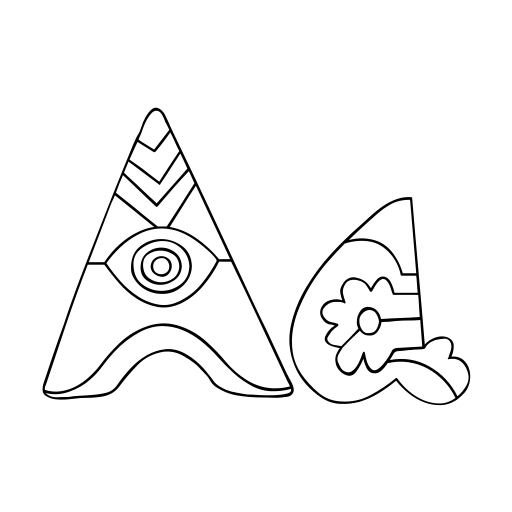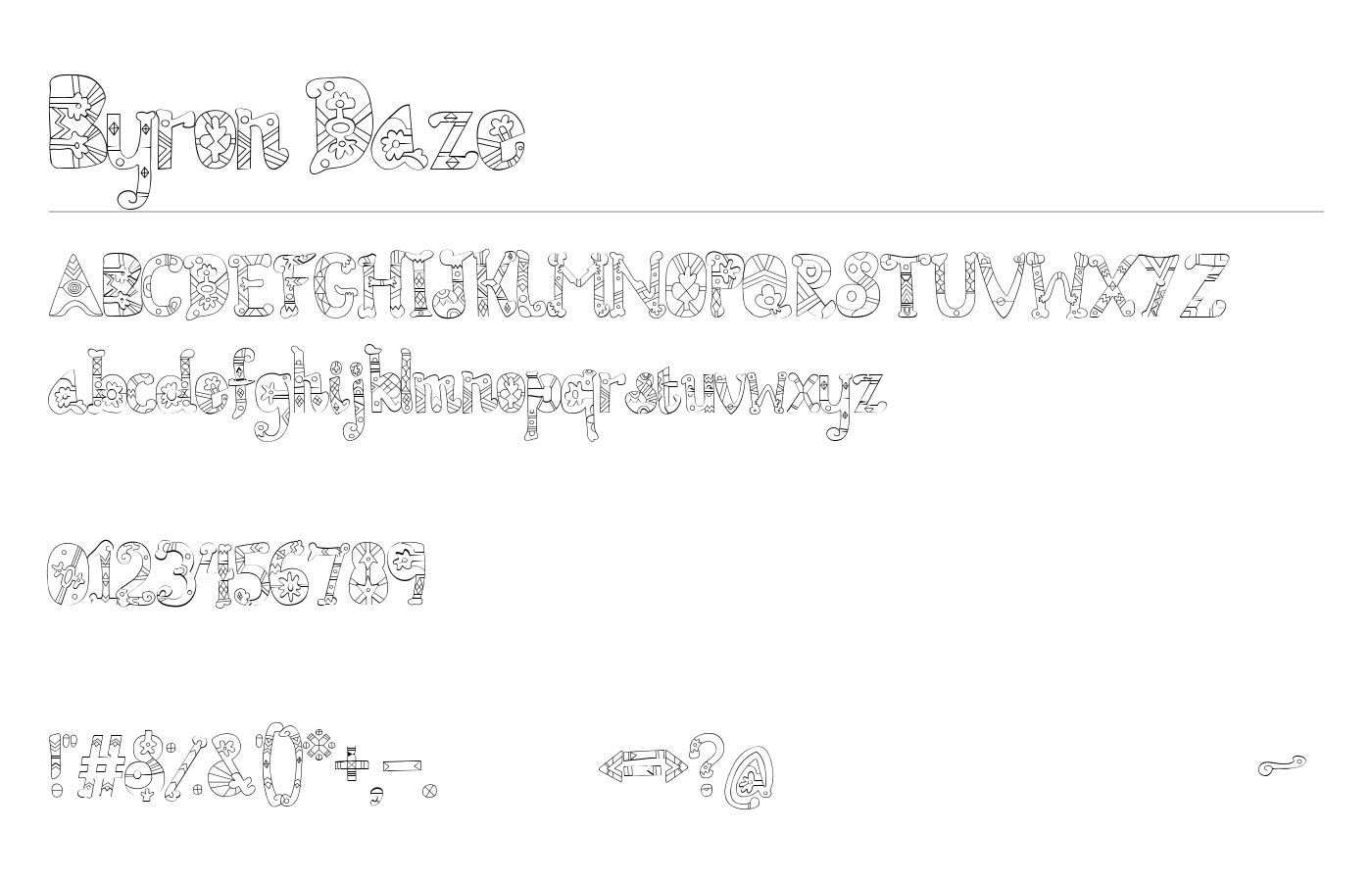
Byron Daze is a whimsical decorative font featuring bold, outlined letterforms filled with playful, intricate patterns, perfect for adding a fun and artistic touch to any design. Its unique style with quirky shapes and detailed interior motifs makes it ideal for creative branding, children's materials, and eye-catching headlines where a lively, hand-crafted feel is desired. This font stands out best in display use, bringing an imaginative and joyful personality to projects.
Byron Daze Font
About Byron Daze Font